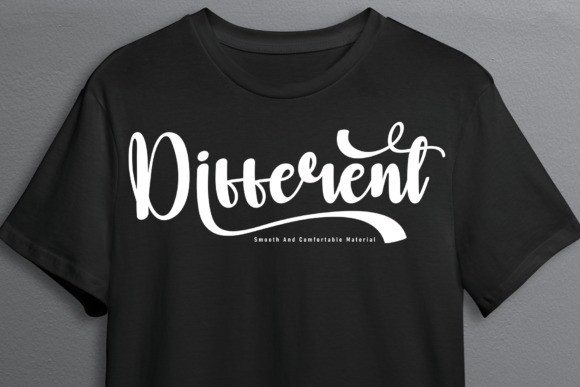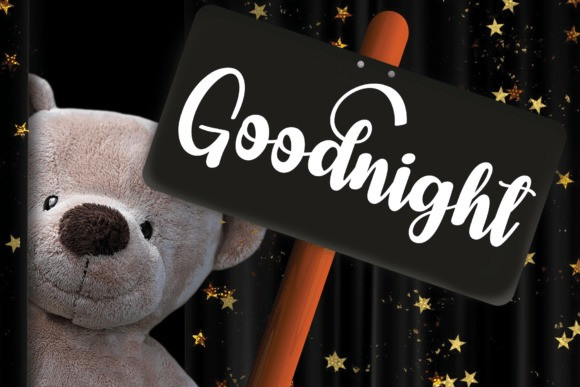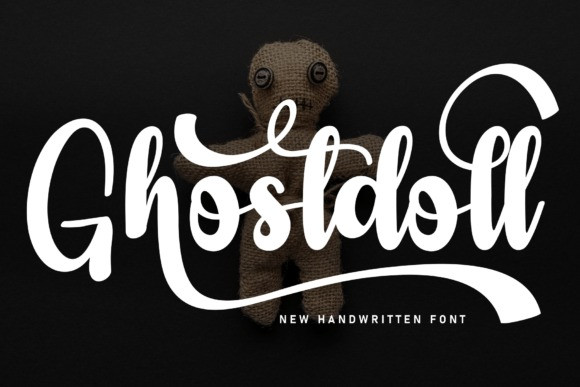
Ghostdoll Script Font
Ghostdoll Script Font is a sweet and friendly handwritten display font. Cute and fun, this font is ideal for writing wedding invitations, cards, or any other design that might need a fun touch!